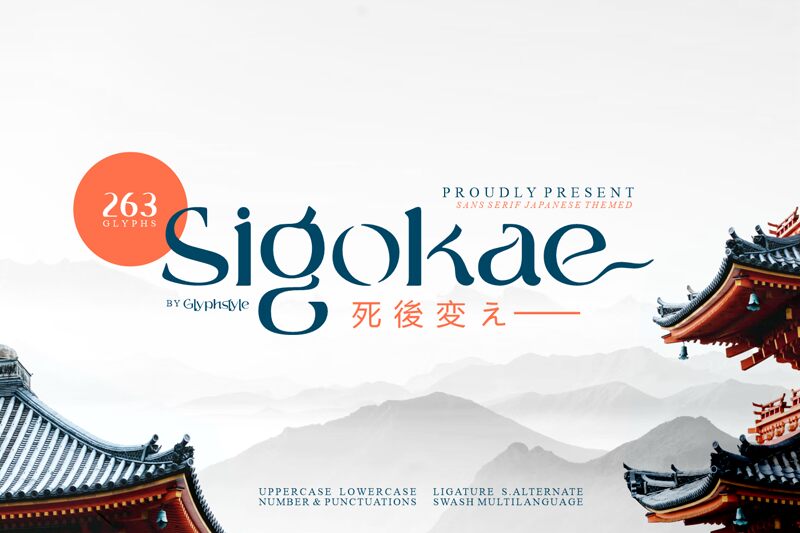
Sigokae Demo
Sigokae font by Glyphstyle is elegant, faux Japanese typeface characterized by its stylized ornamentations. The font has a contemporary flair portrayed in a distinct and unique style, making it stand out and capture attention.
Create Asian-themed designs, packaging concepts, restaurant menus, publication titles, digital printouts. Build text art for branding projects or brainstorm ideas related to games with an Asian atmosphere style.